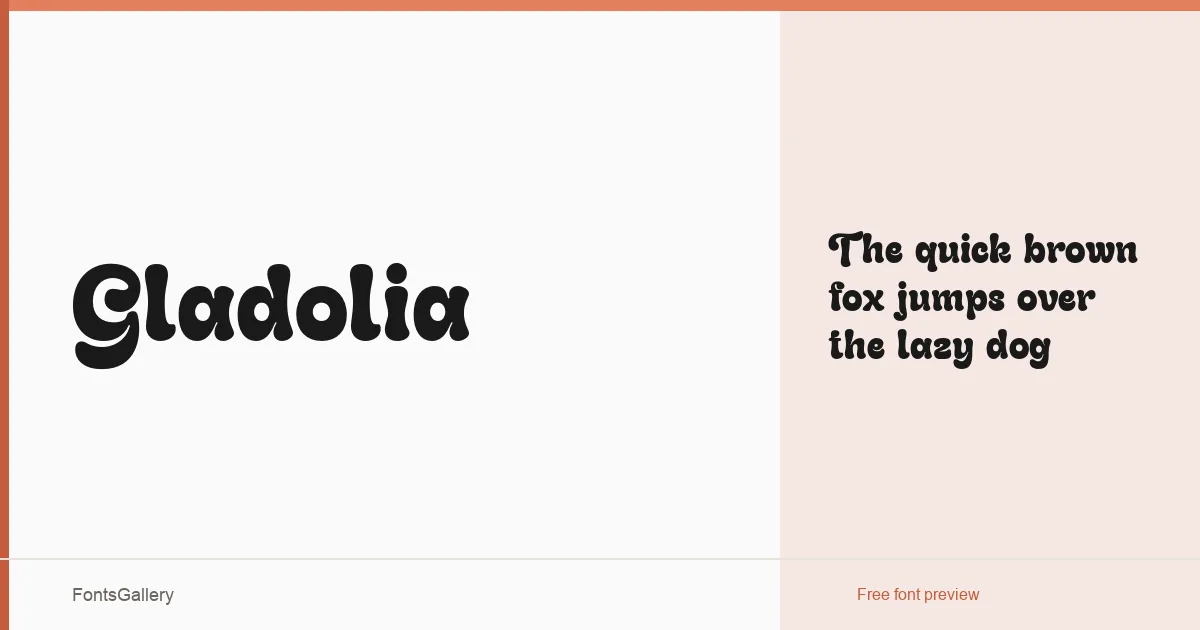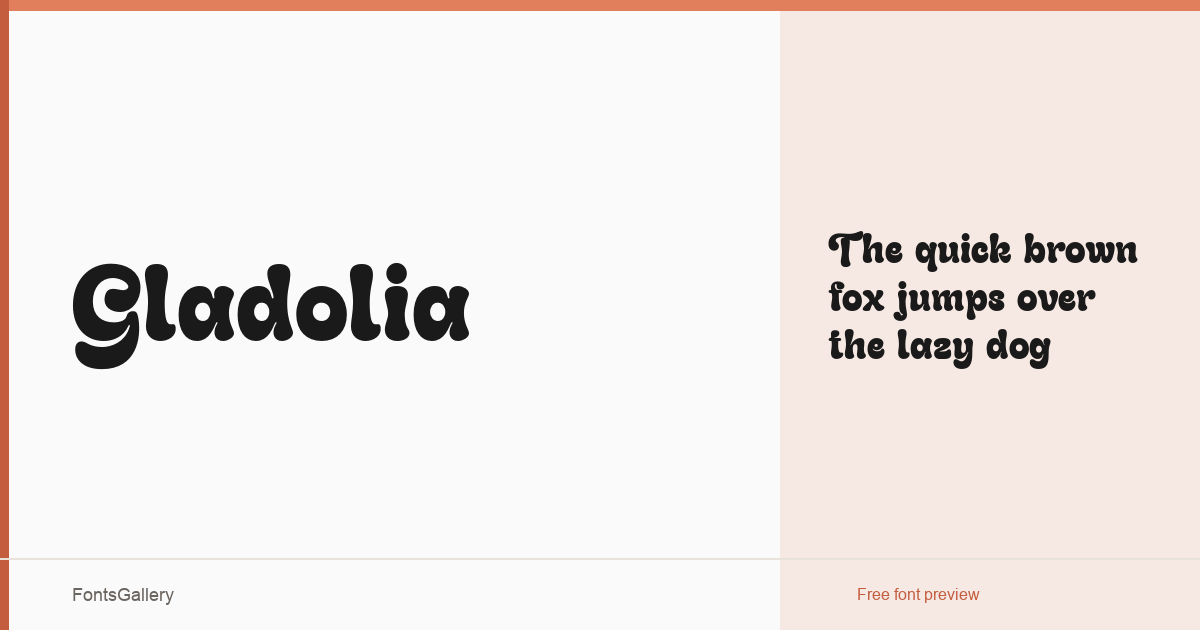
About Gladolia Font
Gladolia is a display typeface crafted by Dharmas Studio and published through Dharmas Foundry. It brings together a playful, whimsical energy with a bold vintage charm that makes it instantly eye-catching. This typeface is designed to command attention and leave a lasting impression in any creative project.
Gladolia's letterforms embrace a bold, expressive character rooted in vintage aesthetics while maintaining a sense of fun and whimsy. Each glyph carries a confident weight that feels lively and full of personality, making the typeface stand out as a true display-focused design. Its playful construction ensures it feels spirited and dynamic rather than rigid or conventional.
Gladolia shines brightest in high-impact applications such as logos, posters, branding campaigns, social media graphics, and t-shirt designs where bold visual presence is essential. Its vintage-meets-whimsical character makes it especially well-suited for creative brands, event promotions, and lifestyle-focused merchandise. For a balanced typographic pairing, consider combining Gladolia with the clean neutrality of Helvetica or the complementary style of Aresink.